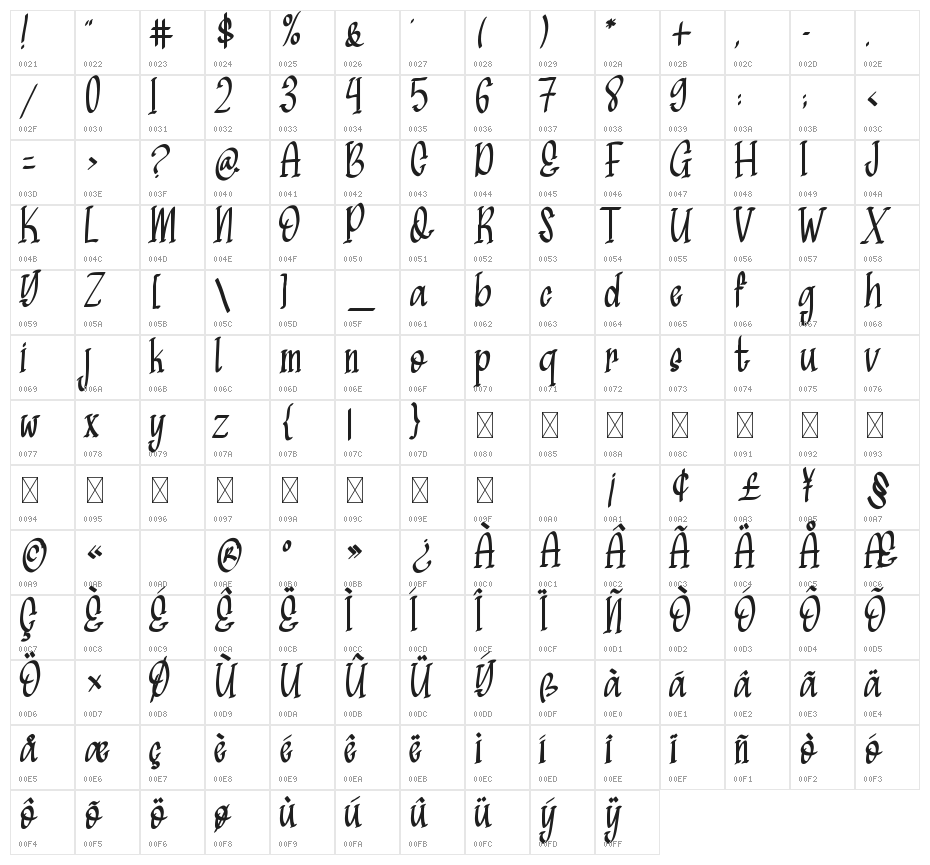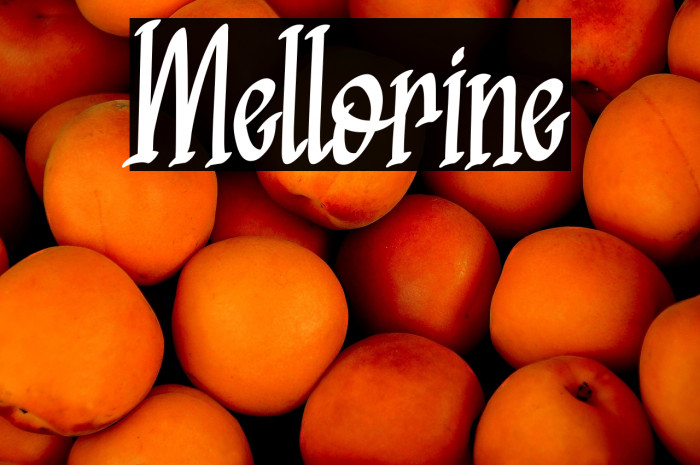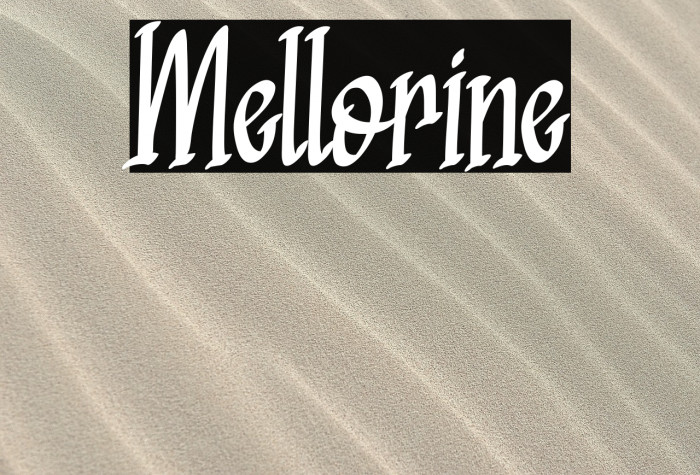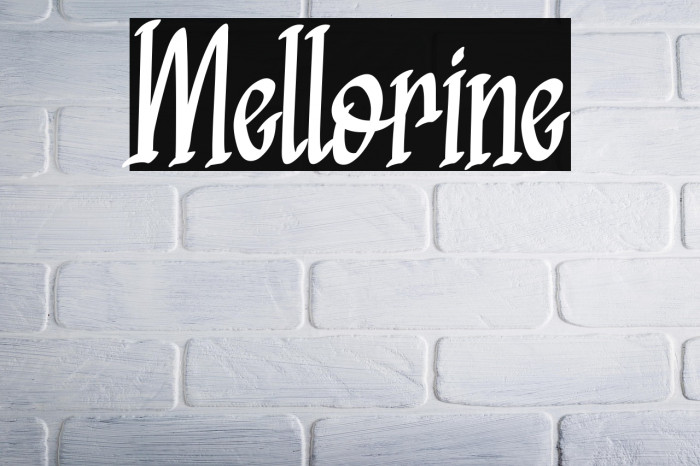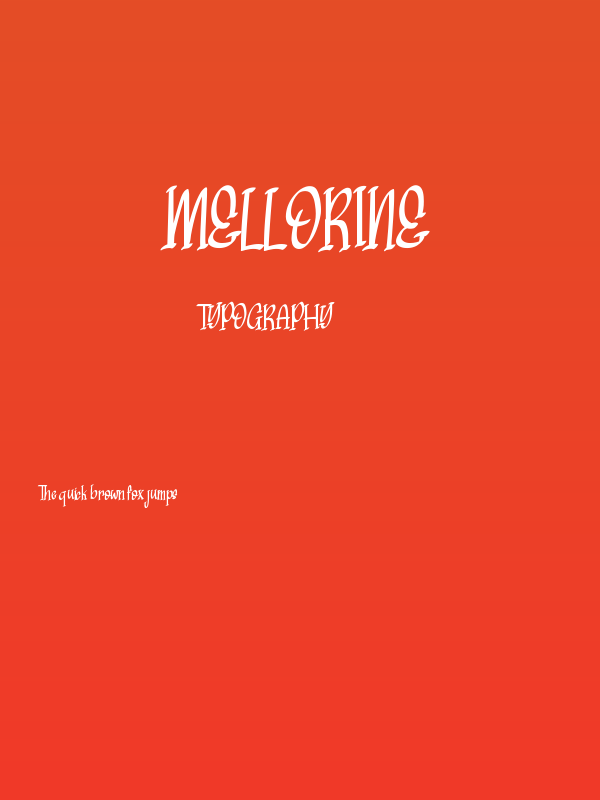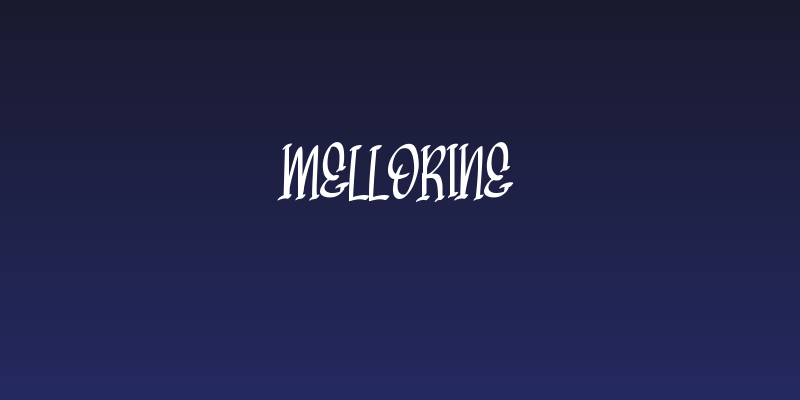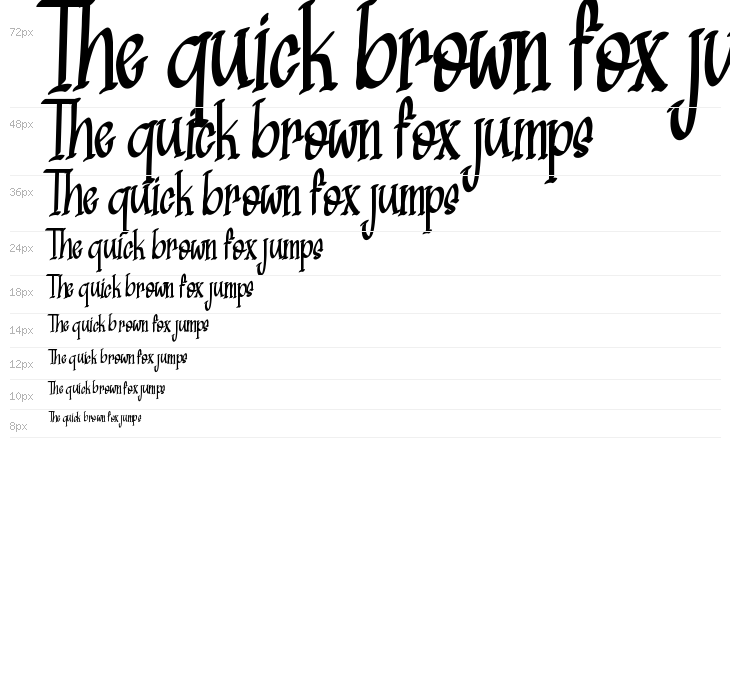
Mellorine Font
Mellorine Description
This font exhibits a dynamic and energetic style, characterized by its bold and expressive strokes. The letters have a hand-drawn appearance, with a slight slant that adds a sense of movement and fluidity. The uppercase letters are tall and narrow, while the lowercase letters maintain a consistent flow, enhancing readability. The numbers and special characters are crafted with the same lively flair, making them stand out. This font's unique style is perfect for projects that require a touch of creativity and personality.
| Use Case | Headlines, Logos, Artistic designs |
| Proposed Projects | Ideal for creative projects such as posters, invitations, branding, and artistic designs. |